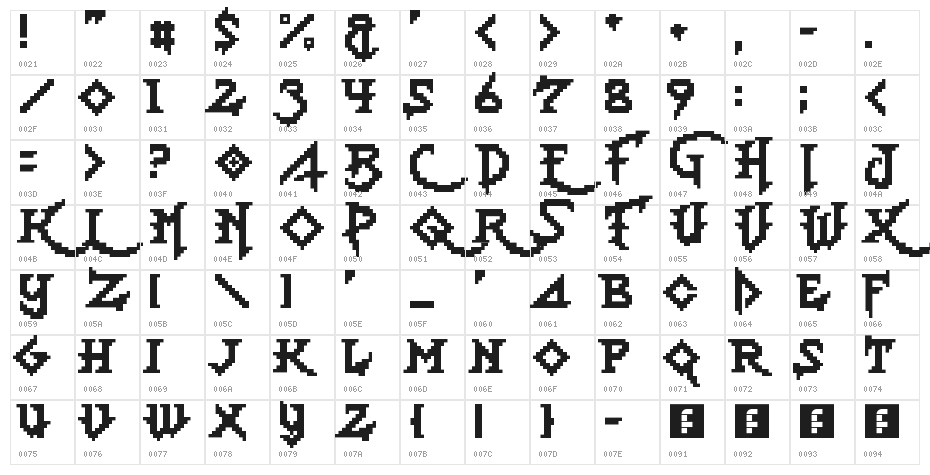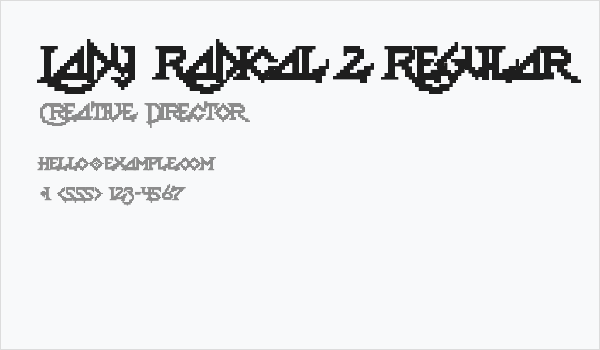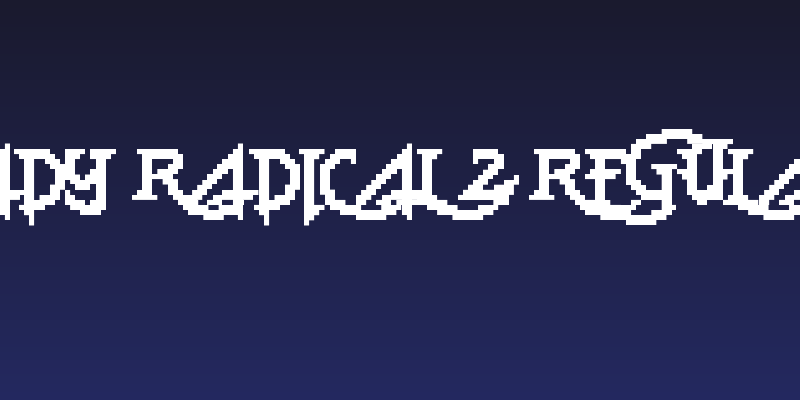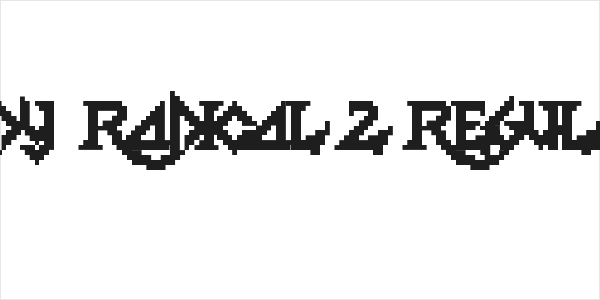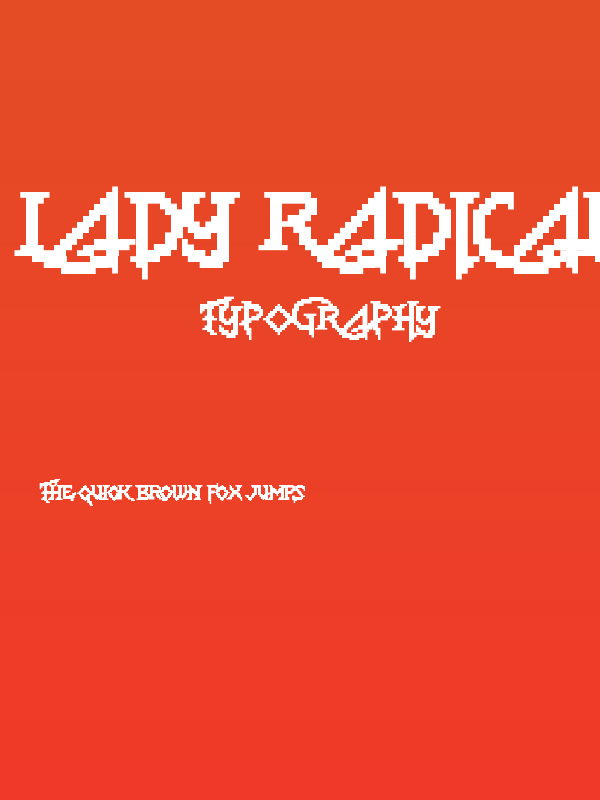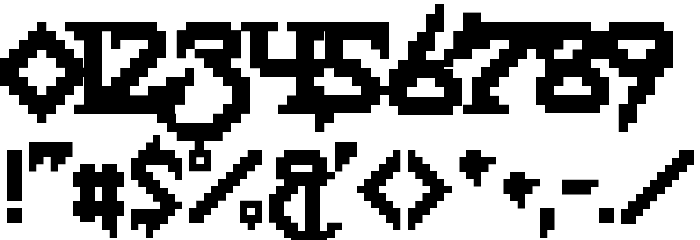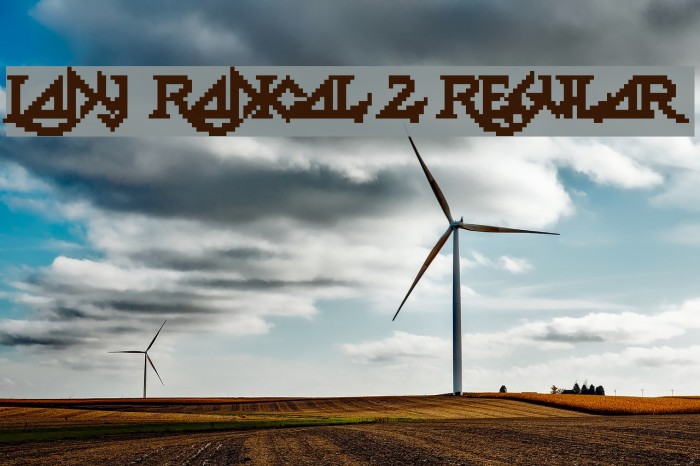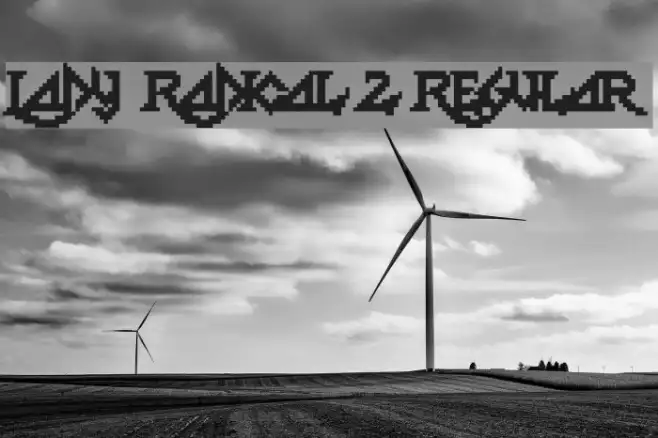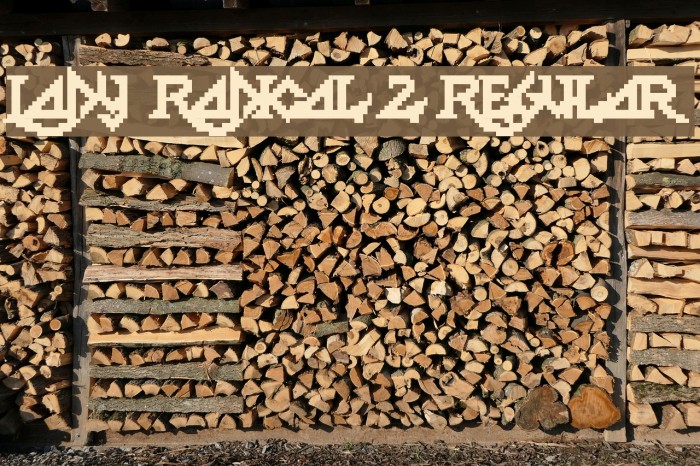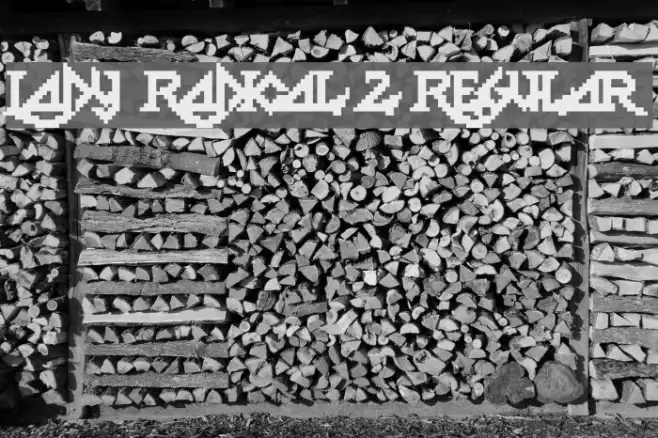
Lady Radical 2 Regular Font
Lady Radical 2 Regular Description
This font features a bold, angular design with a distinctively edgy and rebellious aesthetic. The characters are crafted with sharp, jagged edges and a pixelated style that evokes a sense of digital or retro gaming culture. The uppercase and lowercase letters maintain a consistent height, contributing to a uniform appearance, while the numbers and special characters are designed to match the overall theme. The font's unique style makes it stand out, offering a striking visual impact that is both modern and nostalgic.
| Overall Style | Modern, Retro |
| Use Case | Logos, Posters, Digital Art |
| Proposed Projects | Ideal for video game graphics, digital art projects, posters, and branding that seeks a retro or rebellious vibe. |